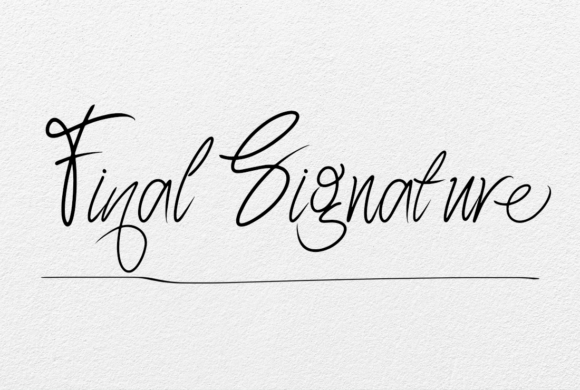
Step into an enchanted world of eloquence and panache with the Final Signature Font – a breathtaking script font family designed to leave you breathless. As an artist, your creativity knows no bounds, and Final Signature Font is the perfect partner to bring your vision to life.
With its innate charm and undeniable elegance, Final Signature Font will transform your digital creations into pieces of art. This modern calligraphic masterpiece boasts a beautiful rhythm that will add a touch of sophistication and timeless beauty to your designs. Whether it's a captivating logo, an enchanting wedding invitation, or eye-catching social media posts, Final Signature Font will captivate your audience with its grace and originality.
Imagine your designs adorned with words that dance with grace across the page, evoking emotions and creating an unforgettable impact. Envision your wedding invitations exuding an aura of romance and timeless elegance, your product packaging radiating sophistication, and your photography capturing moments with a touch of magic. Final Signature Font is the key to unlock the full potential of your creativity.
Let your artistic flair shine as you craft stunning designs that speak volumes. Unleash the power of Final Signature Font to create a visual symphony that resonates with your audience. Its versatility extends from logos and branding to social media and product designs, making it the ultimate choice for designers, crafters, and entrepreneurs alike.
Don't settle for ordinary fonts; embrace the extraordinary with Final Signature Font. Its beauty and versatility will elevate your creations, leaving an indelible mark on the hearts and minds of your clients and customers. Step into the spotlight and let your designs shine brighter than ever before.